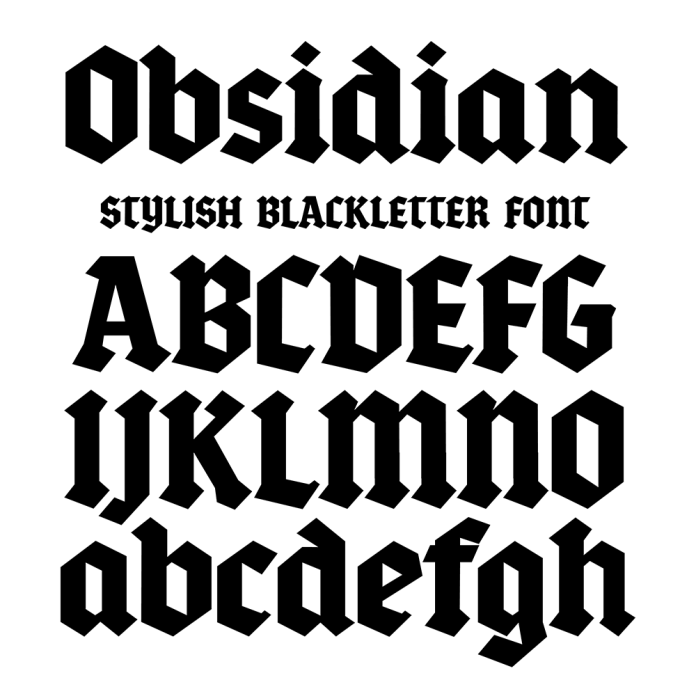
Obsidian Bold Blackletter Halloween Font is a spooky and bold typeface perfect for Halloween-themed designs. Its intricate blackletter style with decorative elements creates a mysterious and gothic vibe. Ideal for posters, invitations, and other festive projects.